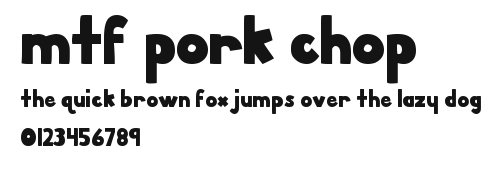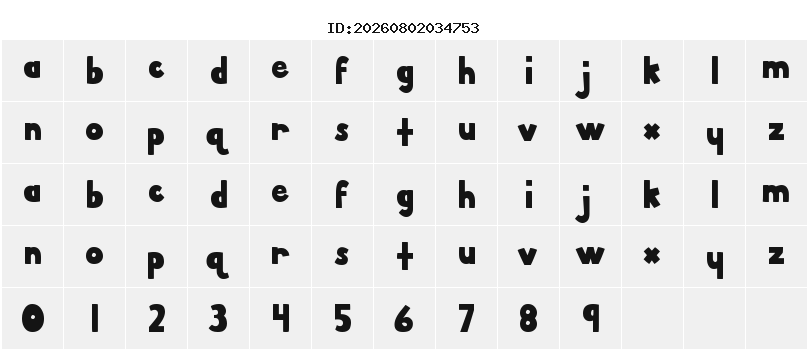
• Font Name: MTF Pork Chop
• Designer: Miss Tiina
About MTF Pork Chop.ttf
MTF Pork Chop.ttf is a modern, elegant sans-serif font designed for ultimate readability and visual harmony. Perfect for branding, headlines, web design, and print materials.